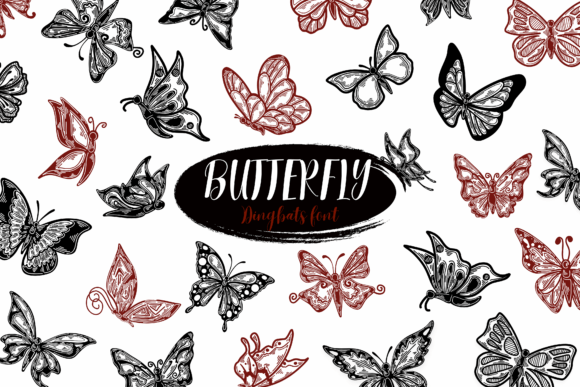
Unleash Your Creativity with the Butterfly Font
Remember that moment when you stumbled upon the perfect font for your project? The one that brought all your ideas together and made your design truly shine? For designers, finding the right font can be a game-changer. And if you’re looking for a font that will add a touch of magic to your creative projects, look no further than the Butterfly Font.
This enchanting dingbats font features a sketched style that’s perfect for adding a whimsical touch to your designs. Whether you’re creating wedding invitations, DIY crafts, or logos, the Butterfly Font is sure to bring your ideas to life. Its unique style makes it a valuable asset for designers looking to add a little extra flair to their projects.
Key Features of Butterfly Font
- Unique Characteristics: Butterfly Font features a unique, hand-drawn design with intricate details and subtle flourishes, giving it a distinctive and elegant appearance.
Butterfly Font Review
As a designer, I’ve had the chance to work with a wide range of fonts, and the Butterfly Font is one that’s left a lasting impression. ✨
- Unique Aesthetic: The Butterfly Font has a distinct, whimsical feel that’s perfect for adding a touch of personality to your designs.
- Legibility: Despite its playful nature, the font is surprisingly easy to read, making it suitable for a variety of applications.
- Customization Options: The font comes with a range of customization options, allowing you to fine-tune the look and feel to suit your needs.
- ⚠️ Limited Font Sizes: The font doesn’t quite scale well to larger sizes, which can make it appear pixelated or distorted.
- ⚠️ Limited Language Support: Unfortunately, the font doesn’t support a wide range of languages, which can limit its use in global applications.
Overall, I’d say the Butterfly Font is a great choice for designers looking to add a touch of personality to their work. While it may have some limitations, its unique aesthetic and customization options make it a valuable addition to any design toolkit.
The Butterfly Font is ideal for:
- Wedding invitations
- Stationery and greeting cards
For optimal results, use the font in conjunction with whimsical illustrations and bright colors.